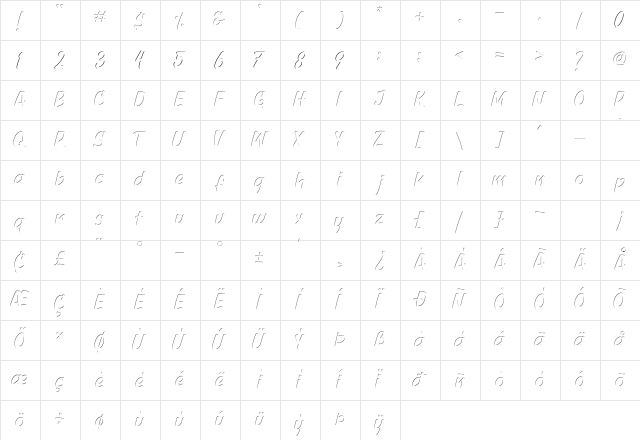
Great Hustle Inner Regular
| Designer | Fachranheit 2020 |
Design Context for Great Hustle Inner Typeface
Great Hustle Inner is a composed and adaptable typeface that performs quietly and consistently across a wide range of design contexts.